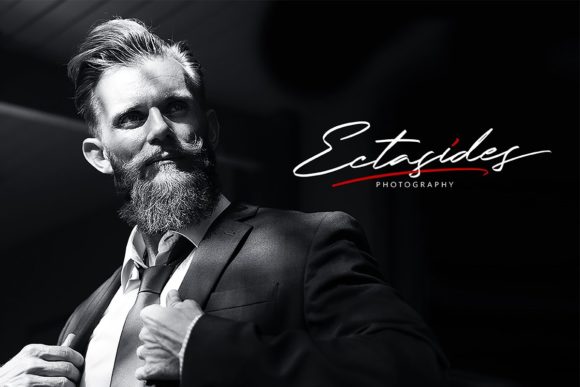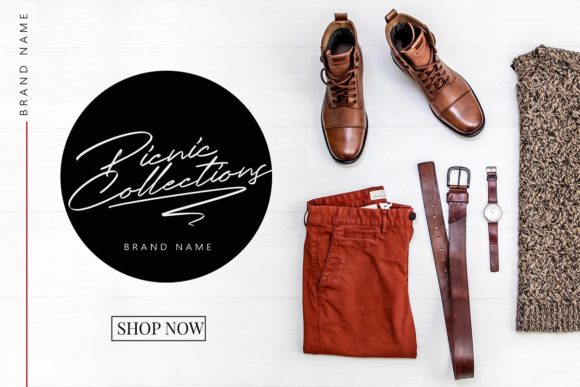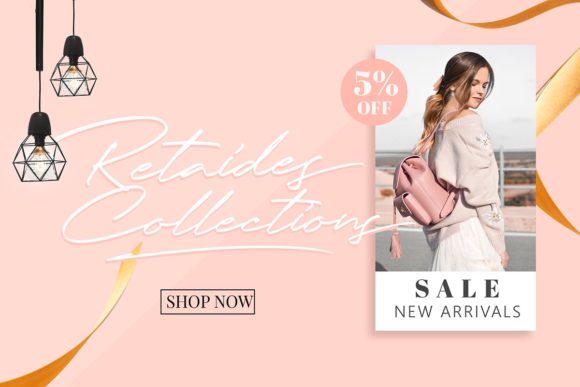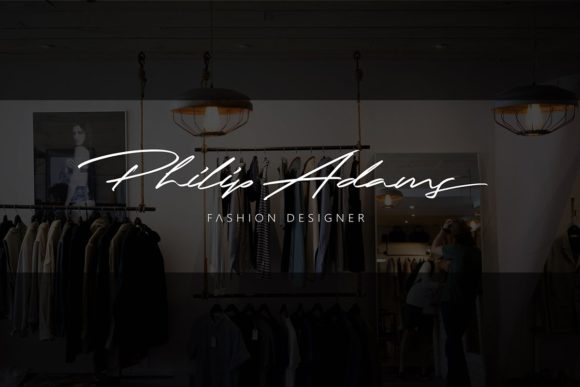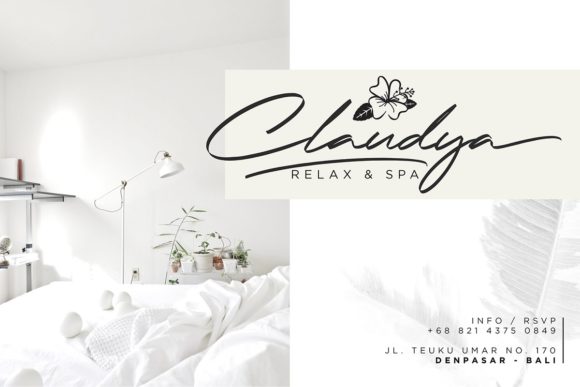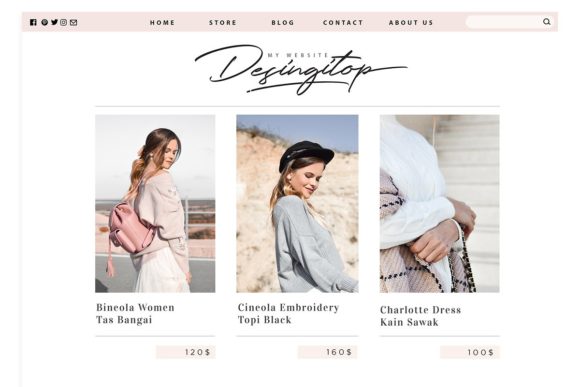
Introduction to Jodie Badiston Font
Jodie Badiston is an elegant and sophisticated script font with a bold twist.
Fall in love with its contemporary feel .